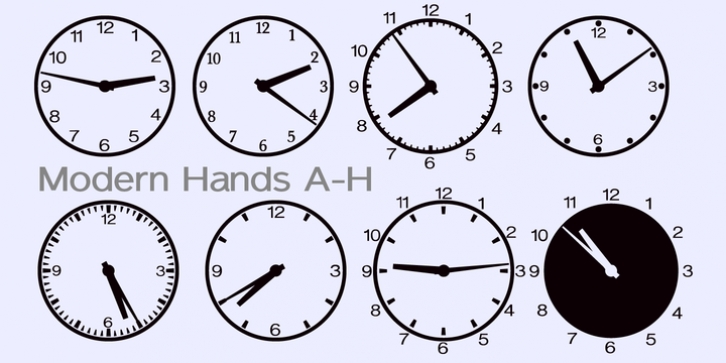
It's simplicity itself - just type in the four numbers of any time from 0000 to 2359 and it'll give you that clock face, in the style of your choice, (and there's plenty of choice too, 60 different styles). If you want to show the time as numerals, put a colon in as you usually see, something like 09:33 or 18:12. Leave the colon out and you'll get the clock face. Download the Instructions PDF which is in the Gallery of graphics for more details (it's very simple to follow).
In case you're wondering, the letters in this font are based on our Sanstone font.
The naming convention is as follows:
------------------
Mod = Modern Hands on the clockface (with various styles A to M)
Ant = Antique (ornate) Hands on the clockface (with various styles A to M)
Roman = Roman Numerals used, with antique style hands (A - F)
Plain = No numbers on the clockface (A - H)
Box = The clockface is in a square-ish box (A - E)
Open = an Open style of clock face (A - D)
Wide = a Wide rim to the clock (A - I)
Yin and Yang = you've probably guessed already what these have on the clock face